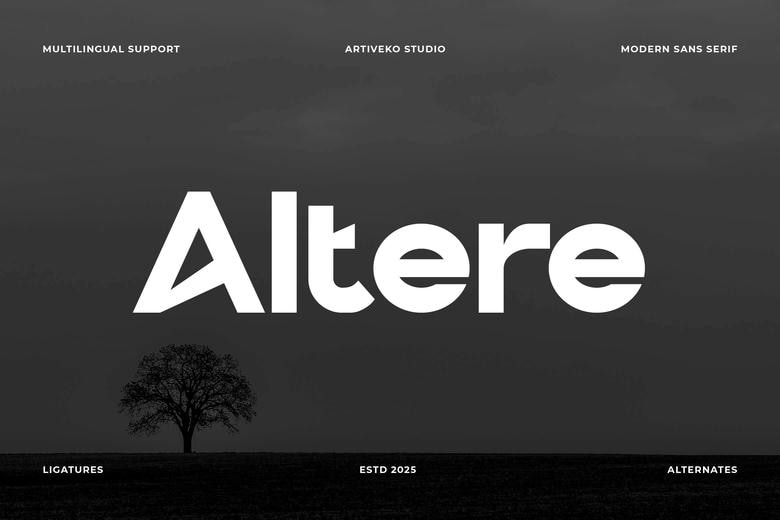
Altere Font
Altere is a stylish and modern sans serif font designed with artistically-driven individuals who appreciate vanity and design. Having its smooth geometry, graceful spacing and modern letterforms, Altere is ideal in branding, logos, packaging, posters, and digital layouts, which are simple and creative at the same time.
Altere Sans Serif Font